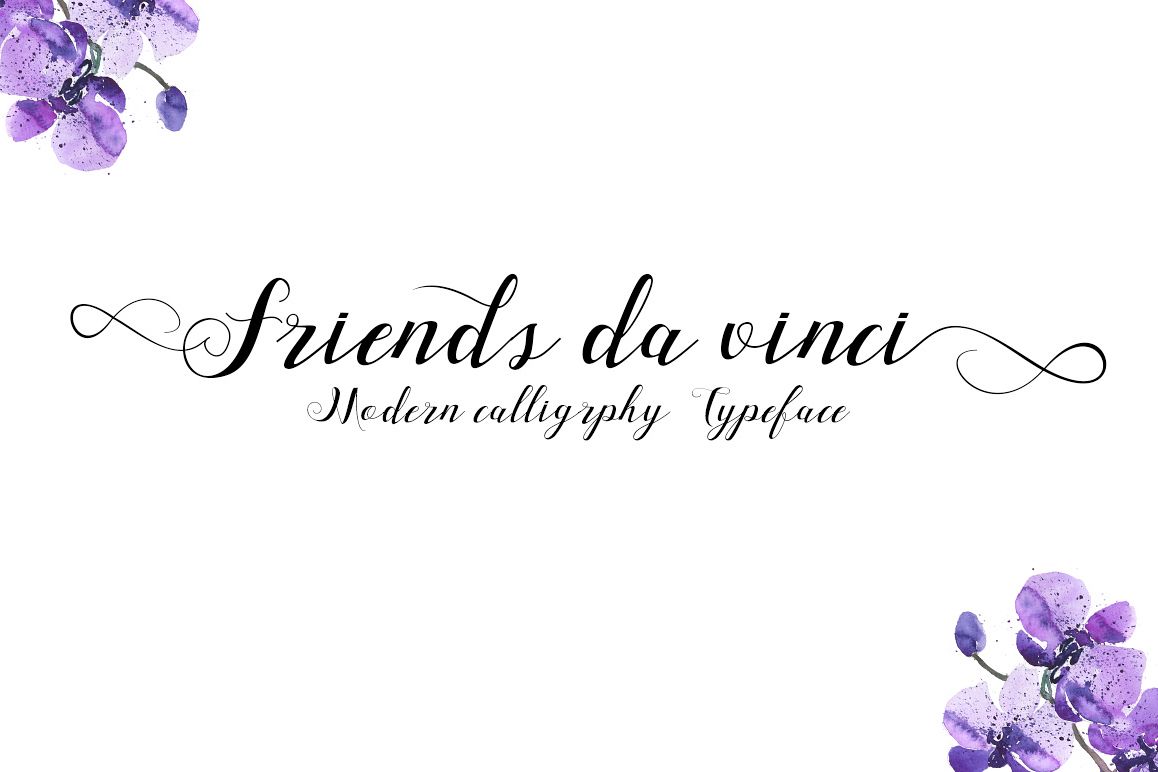
Friends Da Vinci Script
Friends da vinci.
Friends Da Vinci Script
Friends Da Vinci Script is handwritten stylish copperplate calligraphy fonts, combines from copperplate to contemporary typeface with a dancing baseline, classic and elegant touch.
Friends Da Vinci Script features 596+ glyphs and 480 alternate characters. including initial and terminal letters, alternates, ligatures and multiple language support.